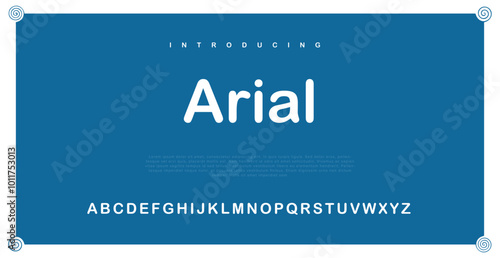
Arial Creative font. Modern abstract digital tech font. Logo creative font, type, technology, movie, digital, music, movie. Fonts and illustration in vector format.